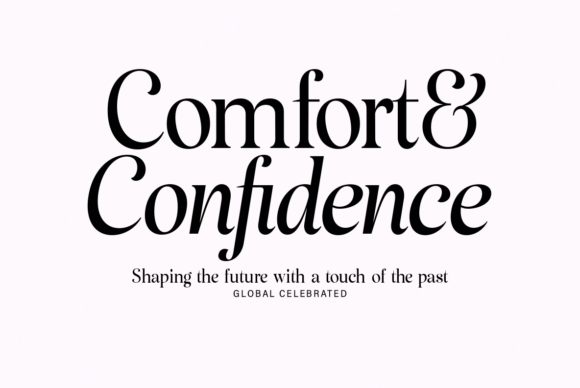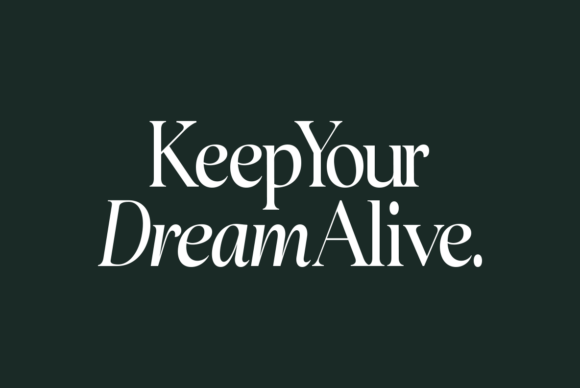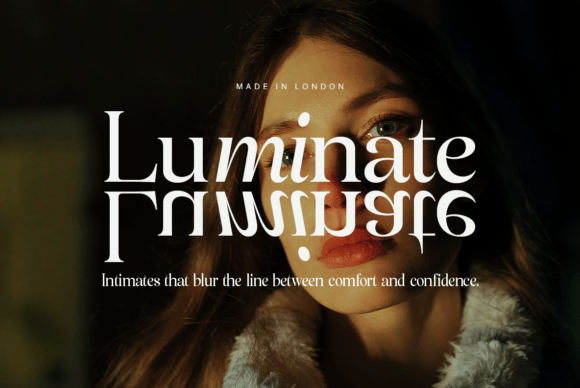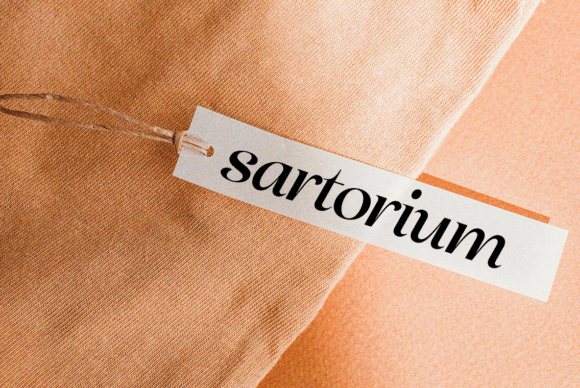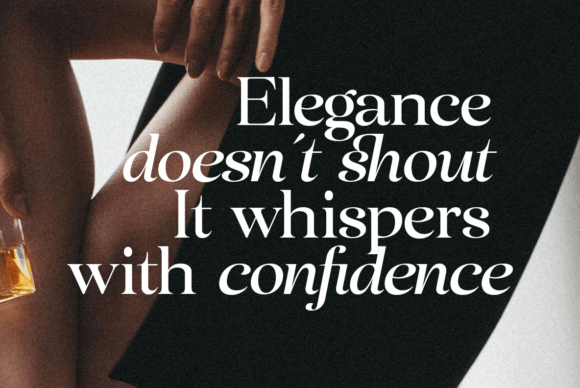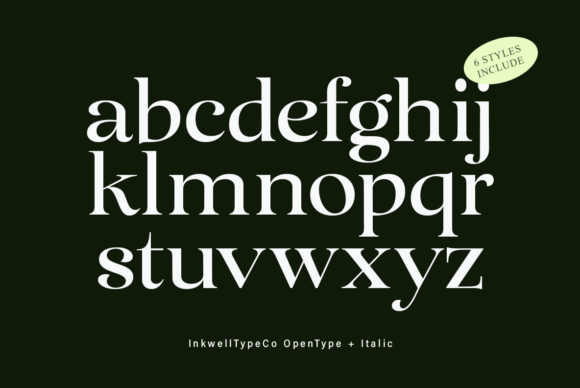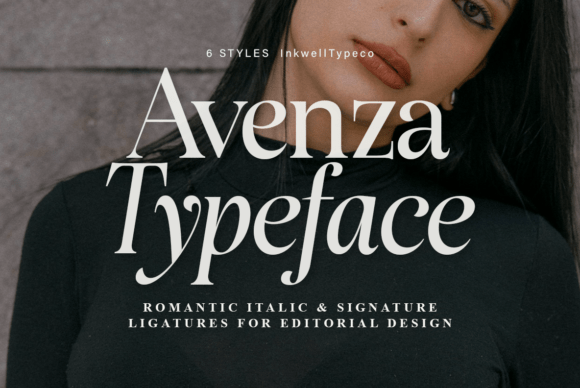
Avenza Regular Font: Elevate Your Design with Elegance and Sophistication
In the world of typography, a font can make or break the aesthetic of a design project. For those seeking an elegant and high-contrast serif typeface, Avenza Regular Font is an exceptional choice. Designed for editorial use, luxury branding, and refined typographic expression, Avenza exudes timeless charm and sophistication.
The Design Philosophy of Avenza
Avenza’s sophisticated structure blends traditional proportions with contemporary flair, making it a versatile font for various design applications. Its sharp serifs, graceful curves, and subtle calligraphic touch – especially in its romantic italic style – add a level of refinement and elegance to any project. The font’s design philosophy is rooted in creating a balance between classic and modern elements, making it perfect for designers and crafters seeking a unique and luxurious look.
Key Features of Avenza Regular Font
• High-contrast serif typeface: Avenza’s high-contrast design creates a visually appealing and elegant look, perfect for editorial use and luxury branding.
• Six versatile styles: Avenza comes in six styles, allowing designers to experiment with different looks and find the perfect fit for their project.
• Signature ligatures and swash-like details: The font features signature ligatures and swash-like details that add personality and rhythm to headlines, magazine layouts, and fashion-forward visual identities.
• PUA encoding: Avenza includes PUA encoding, making all special characters and decorative elements easily accessible without additional software.
• Readability: Despite its elegant design, Avenza maintains readability, making it perfect for body text and refined typographic expression.
Applications of Avenza Regular Font
Avenza Regular Font is suitable for a wide range of design applications, including:
• High-end publishing: Avenza’s elegant design makes it perfect for luxury publications, such as fashion magazines and high-end editorials.
• Lookbooks and fashion branding: The font’s sophisticated structure and luxurious feel make it ideal for fashion brands and lookbooks.
• Packaging design: Avenza’s refined typographic expression makes it suitable for high-end packaging design, such as luxury product labels and branding.
• Refined personal projects: Designers and crafters can use Avenza to add a touch of elegance and sophistication to their personal projects, such as wedding invitations, business cards, and more.
Why Choose Avenza Regular Font?
Avenza Regular Font stands out from other fonts due to its unique blend of traditional and contemporary elements. Its elegant design, versatility, and readability make it an excellent choice for designers and crafters seeking a luxurious and refined typographic expression.
With Avenza, you can:
• Elevate your design: Add a touch of elegance and sophistication to your projects with Avenza’s refined typographic expression.
• Express your creativity: Experiment with different styles and weights to find the perfect fit for your project.
• Save time: With PUA encoding, you can access all special characters and decorative elements easily, without the need for additional software.
In conclusion, Avenza Regular Font is an exceptional choice for designers and crafters seeking a luxurious and refined typographic expression. Its elegant design, versatility, and readability make it perfect for high-end publishing, luxury branding, and refined personal projects. With Avenza, you can elevate your design and express your creativity with ease.